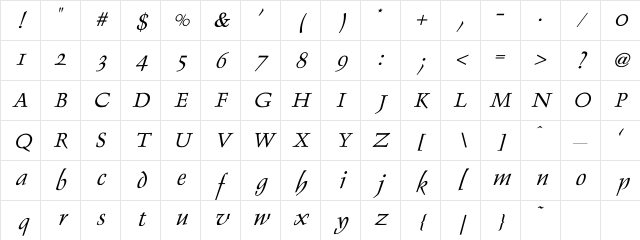
DauphinnItal Regular
Design Context for DauphinnItal
DauphinnItal is a composed and adaptable typeface that performs quietly and consistently across a wide range of design contexts.